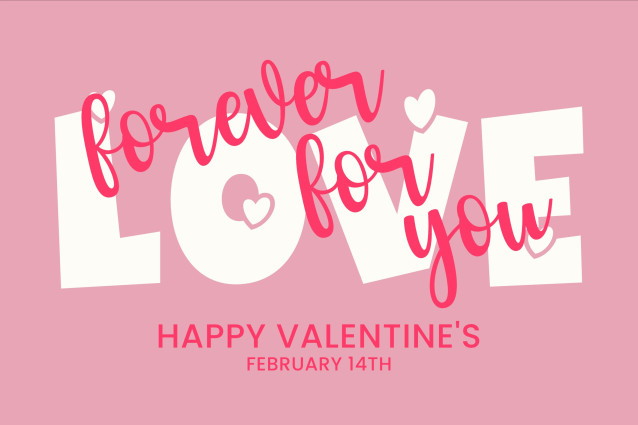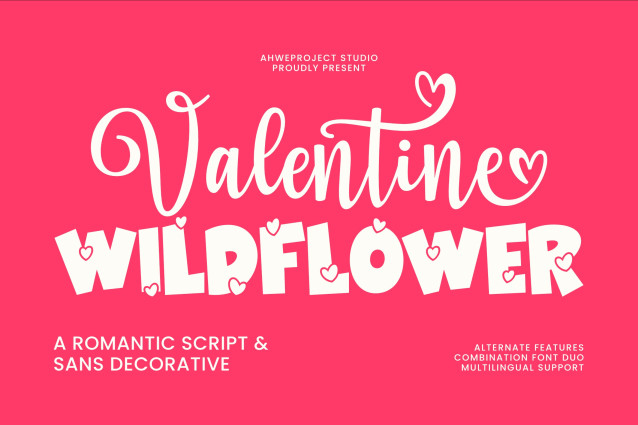
Valentine Wildflower Font Duo
Valentine Wildflower Font Duo a charming and playful font duo perfect for romantic and festive designs. This combination of an elegant script and a bold, decorative sans serif captures the essence of love and whimsy. The script font flows gracefully with heart-shaped flourishes, while the sans serif is fun and lively, adorned with adorable heart details. Whether you’re creating Valentine’s Day cards, wedding invitations, love-themed branding, or social media graphics, Valentine Wildflower will bring a sweet and joyful touch to your designs